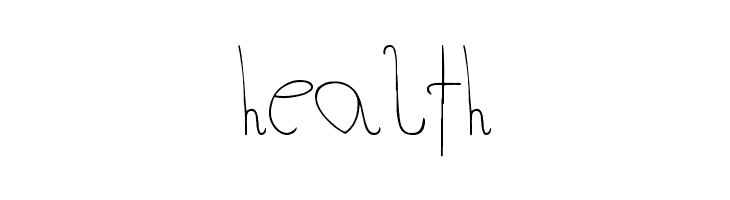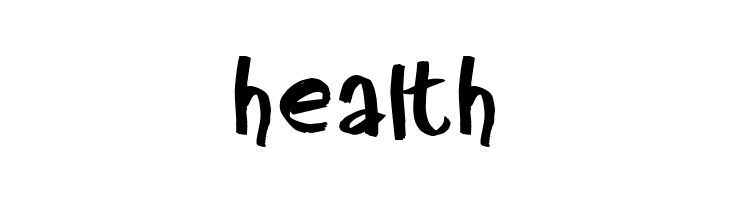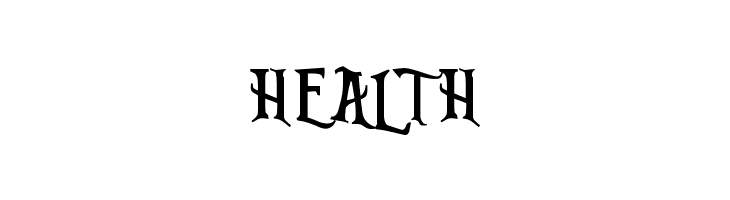
A playful, bold handwritten font with rounded, casual letterforms.
A charming handwritten script with a smooth, flowing style.
A bold, playful handwritten font with a lively and artistic style.
A bold, playful handwritten font with expressive strokes and a lively aesthetic.
Bold, playful handwritten script font.
Decorative vintage-style font with tall, narrow characters.
Playful handwritten font with rounded edges.
Bold, angular display font with a medieval aesthetic.
A quirky, decorative hand-drawn font with playful curls and irregular shapes.
Decorative, spooky display font with splattered, irregular edges.
Expressive brush-stroke font with bold, textured forms.
A bold, jagged display font with a spooky, dramatic style.
Tall, playful handwritten script with consistent stroke width.
Bold, playful handwritten script with brush-like strokes.
Handwritten script font with a natural, elegant flow.
Bold, playful handwritten script with brush-like strokes.
A rounded, hand-drawn sans-serif font with a friendly and informal style.
Dripping, horror-themed decorative font with bold, tall letters.
Bold, energetic handwritten script with slanted, expressive strokes.
Distressed, brush-style horror display font with jagged edges.
Bold, hand-painted brush font with rough, energetic strokes.
Distressed, dripping horror display font with bold, chaotic forms.
A bold, distressed display font with a dripping, horror-inspired style.
Casual, handwritten sans-serif with rounded forms.
Bold, cartoonish display font with a spooky, dripping effect.
Decorative outlined blackletter font with sharp, angular strokes.
Bold, outlined blackletter font with dramatic, medieval flair.
A bold, gothic blackletter font with sharp, dramatic strokes.
A bold, gothic-inspired display font with sharp, angular forms.
Casual, hand-drawn sans-serif with rounded, playful forms.
A decorative, spiderweb-themed display font with hand-drawn, irregular strokes.
A bold, quirky serif font with a spooky, playful vibe.
Distressed, horror-themed display font with jagged, dripping edges.
Bold, decorative serif with playful, irregular shapes.
Playful decorative font with swirled terminals and festive flair.